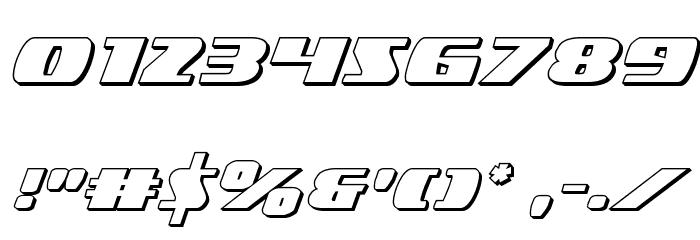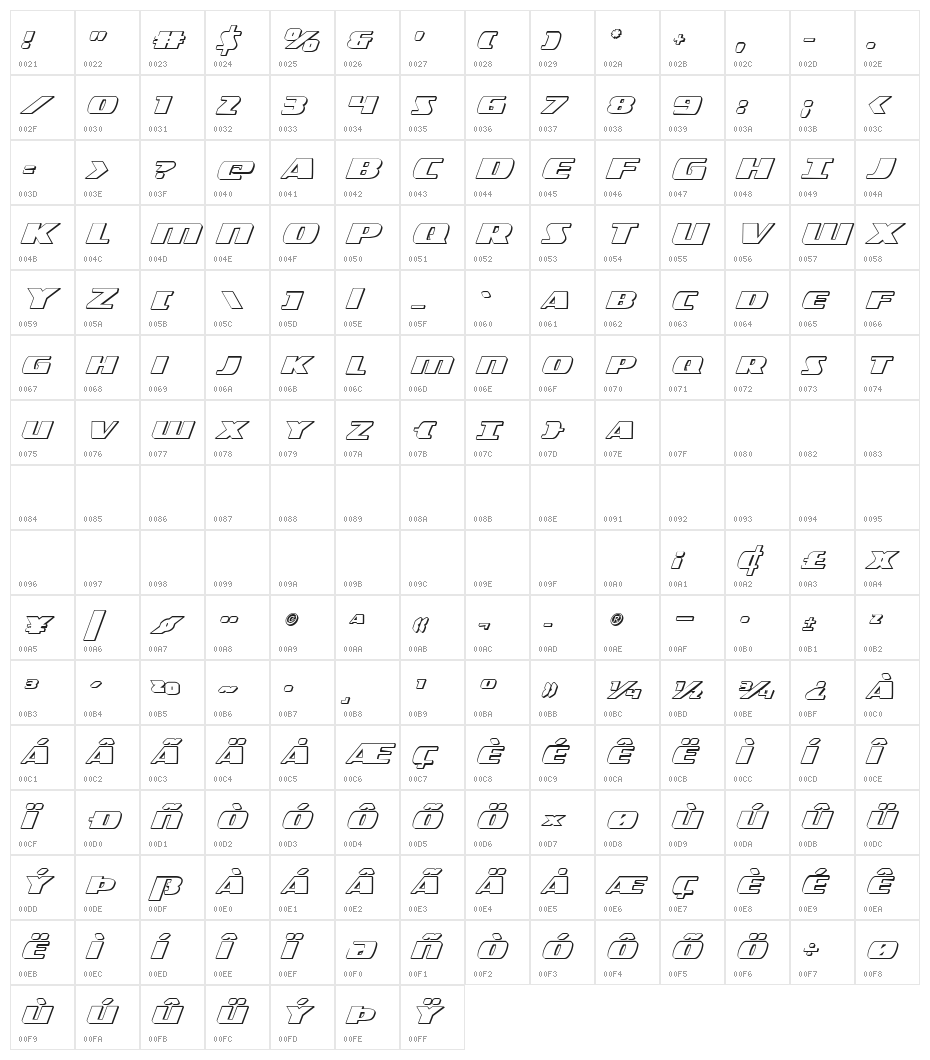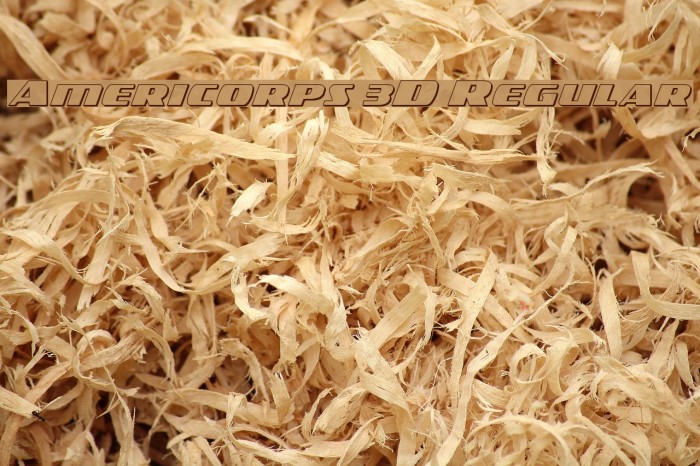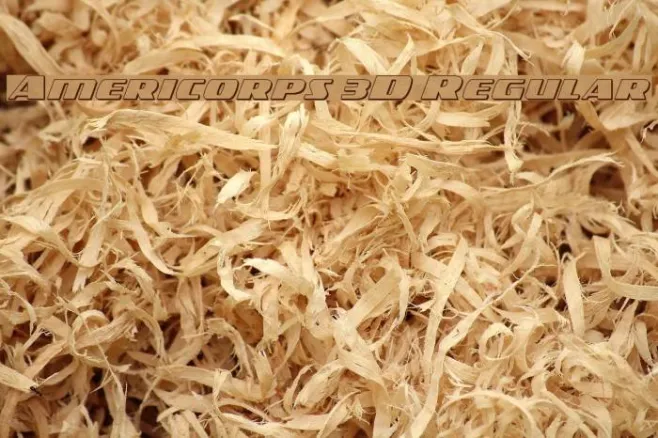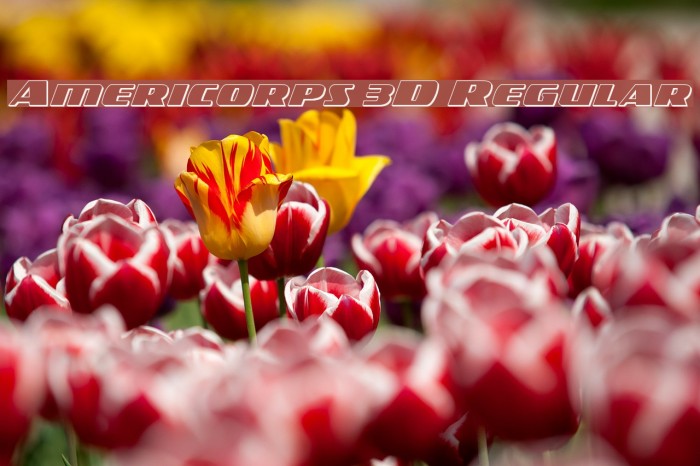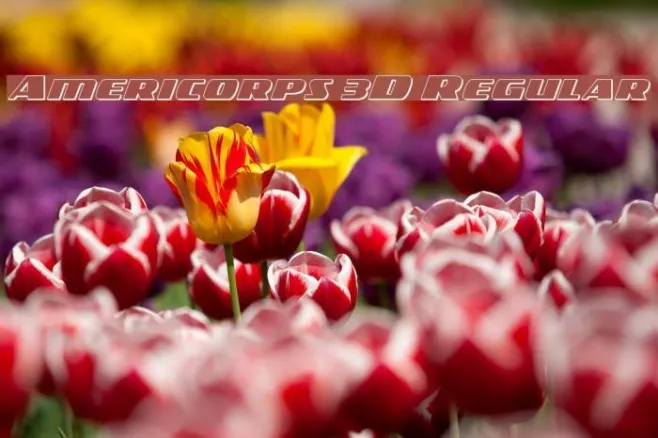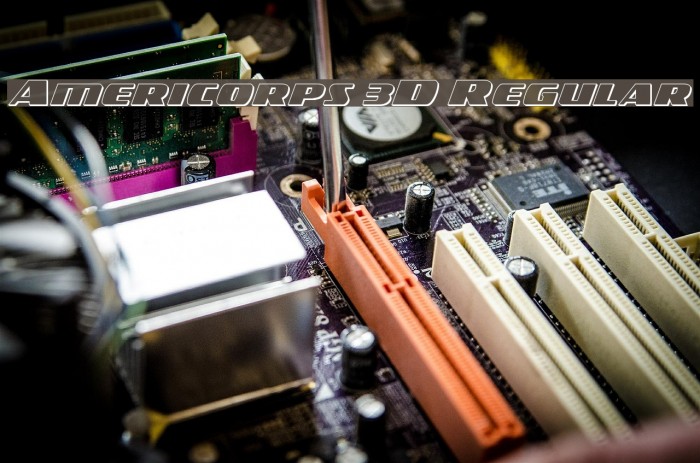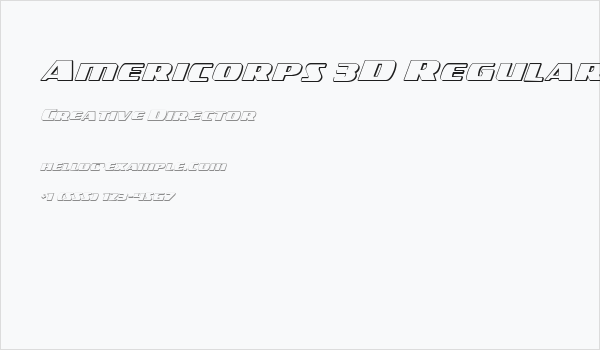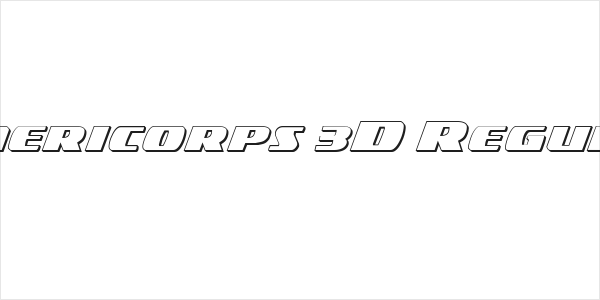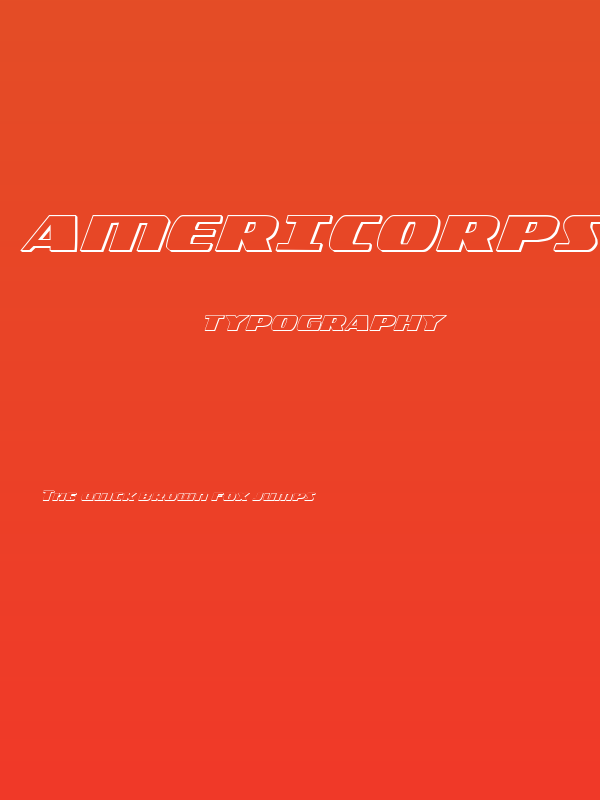
Americorps 3D Regular Font
Americorps 3D Regular Description
This font features a bold, three-dimensional style with a futuristic and dynamic appearance. The characters are outlined with a shadow effect, giving them a sense of depth and movement. The uppercase letters are uniform in height, with sharp angles and straight lines that convey a sense of precision and modernity. The numbers and special characters maintain the same bold and structured design, ensuring consistency across all elements. This font is ideal for projects that require a strong visual impact and a contemporary feel.
| Proposed Projects | Ideal for branding, sports team logos, video game titles, and posters that require a modern and impactful look. |